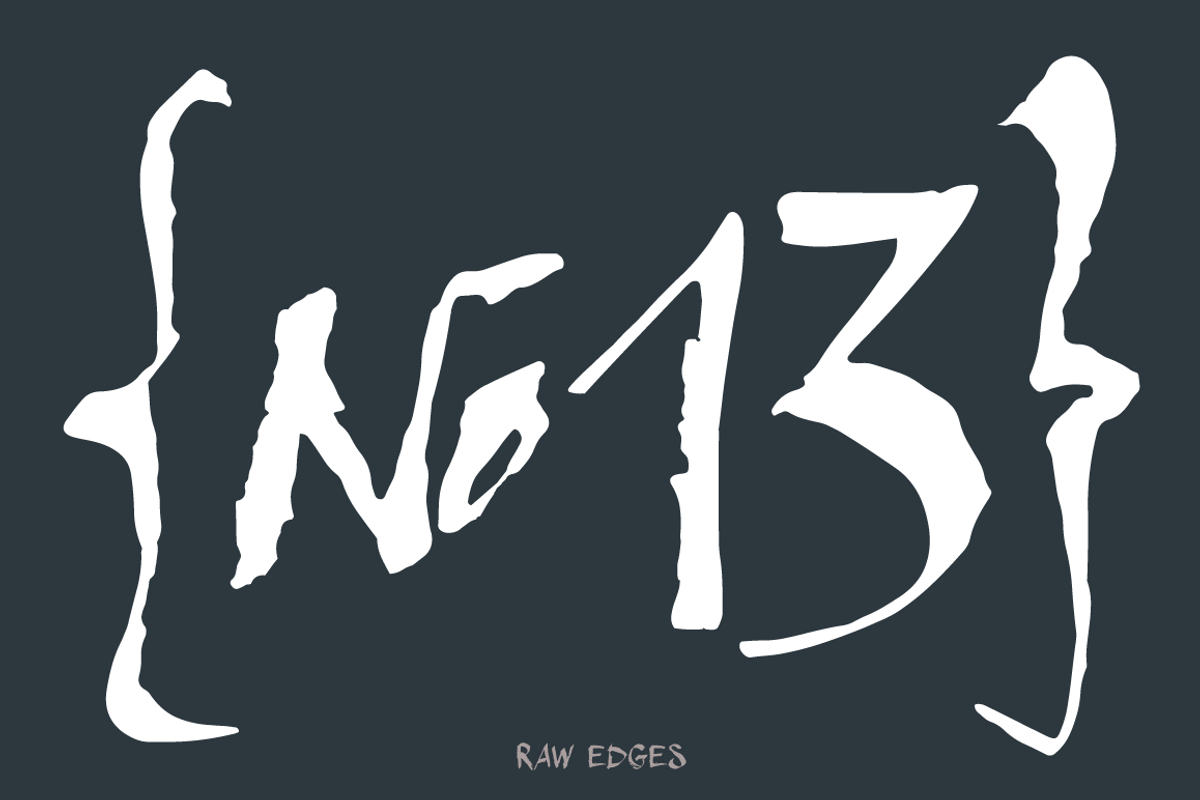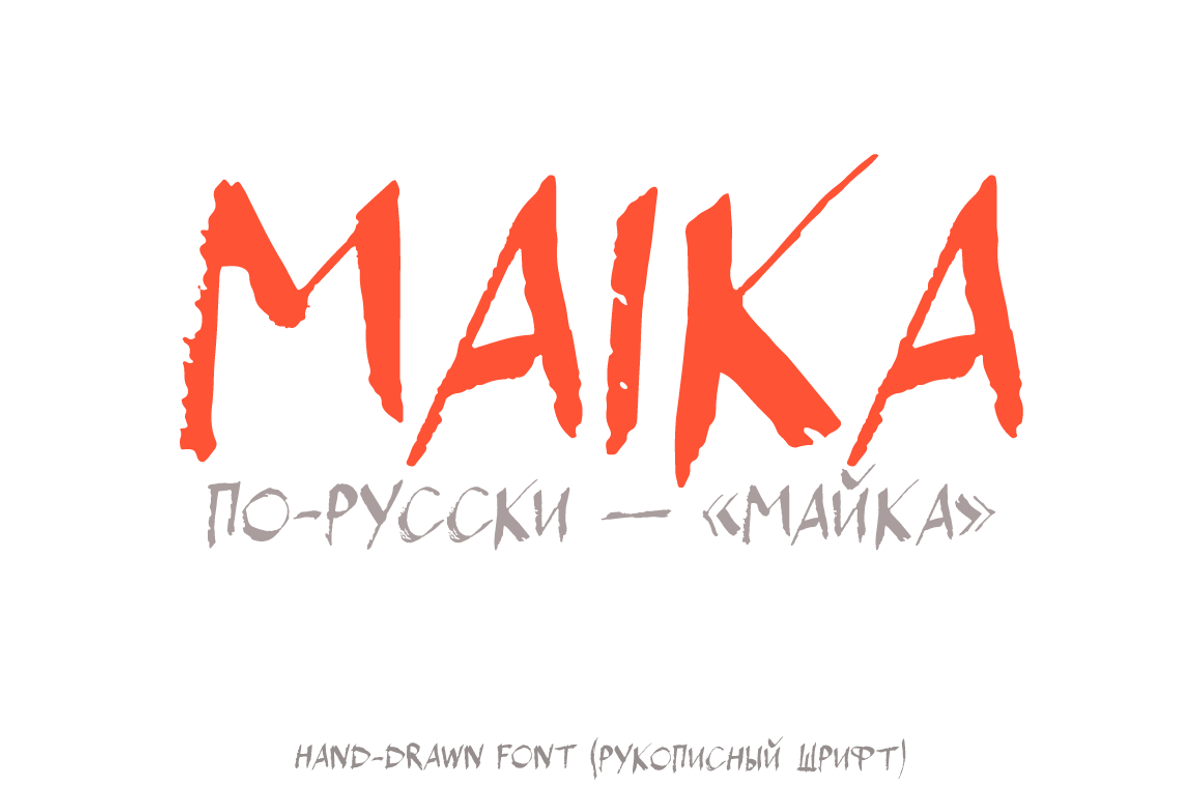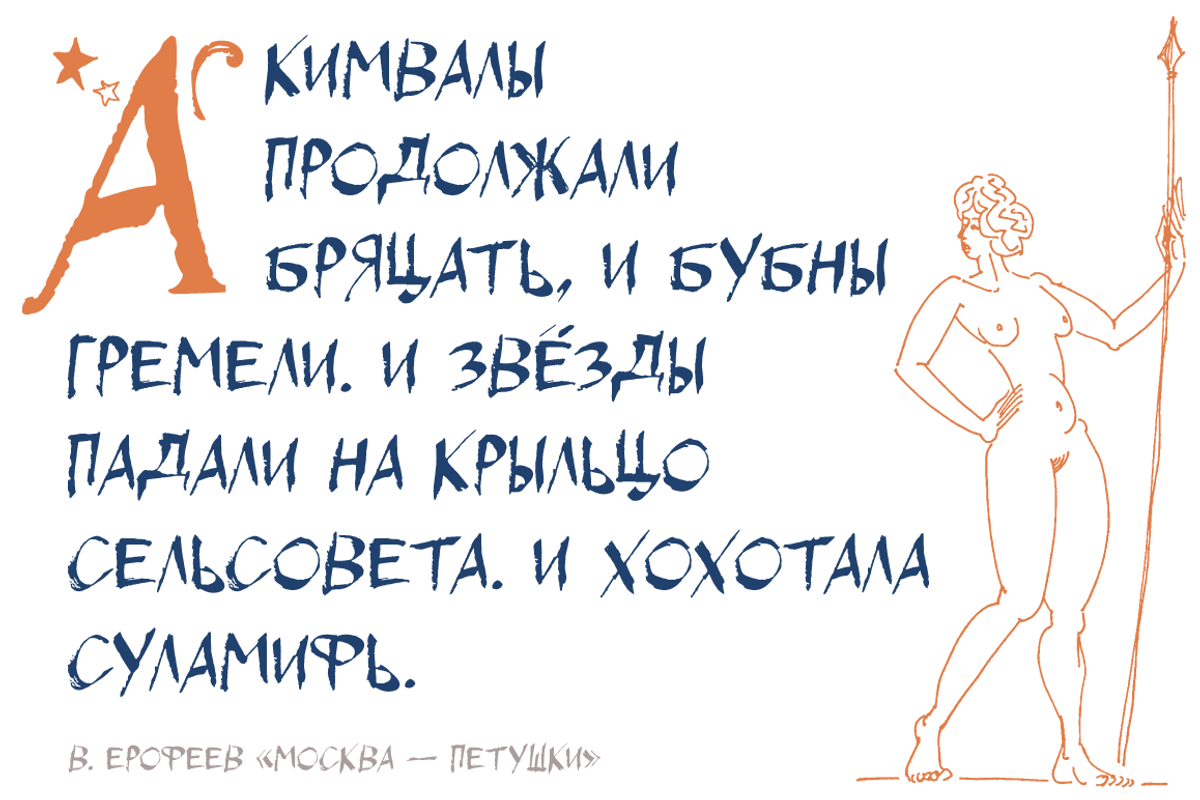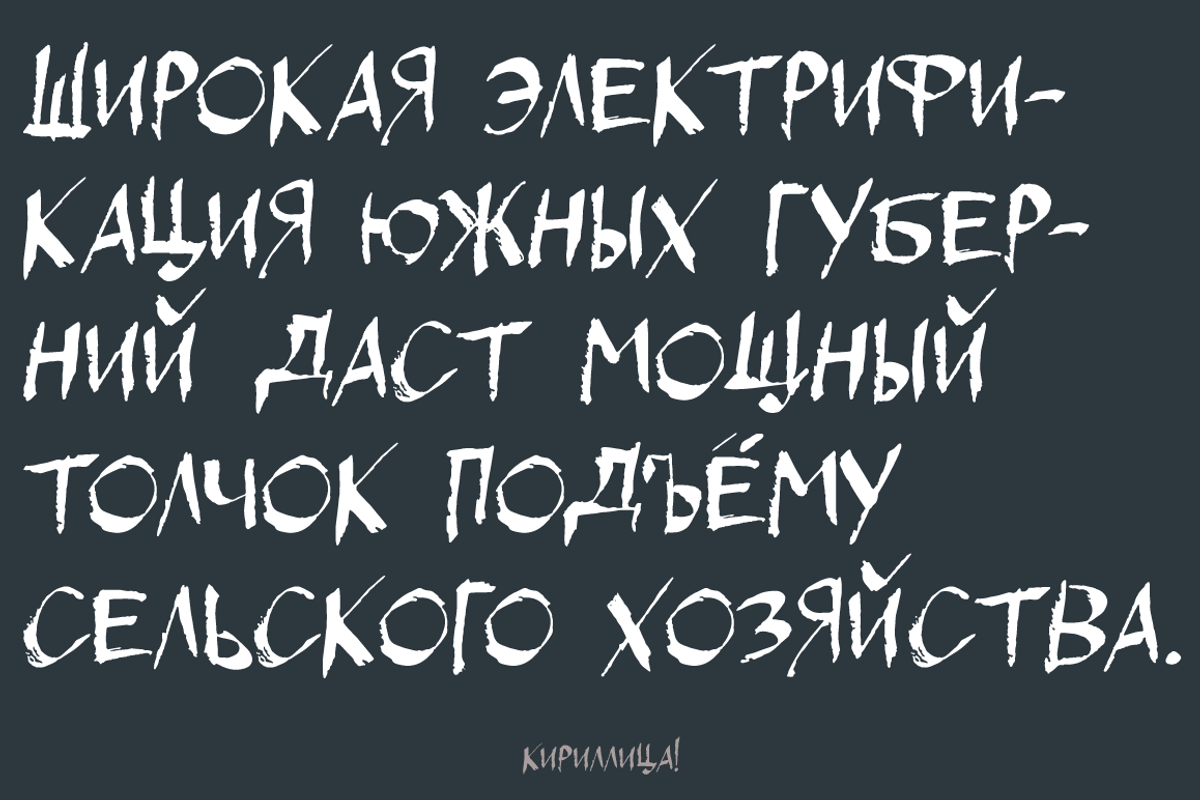
Maika Font
Maika Font by Youhhou is a font selected for branding, posters, packaging, typography.
- It contains latin and cyrillc characters, numerals and punctuation.
Why Maika Font is worth a look
Maika Font by Youhhou fits naturally into Branding, posters, packaging, typography.